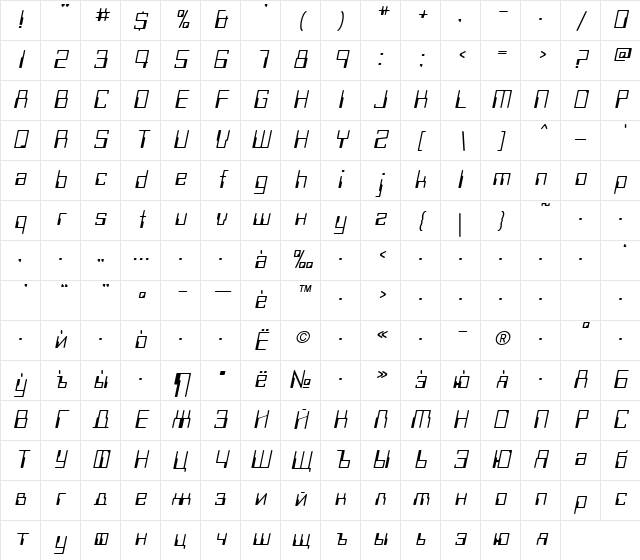
SpaceCyr is a composed and adaptable typeface that performs quietly and consistently across a wide range of design contexts. The slanted form adds forward momentum and visual energy.